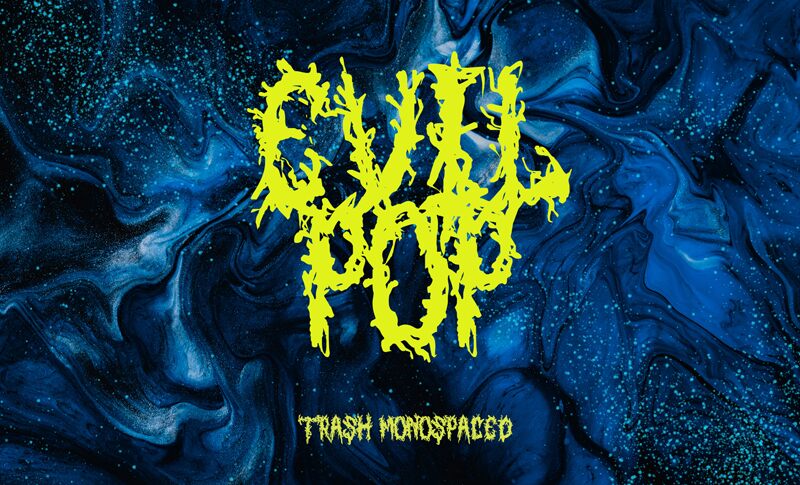
Evil Pop font is a striking display typeface designed by Mofr24, embodying a terrifyingly trashy aesthetic that resonates with the essence of dystopian metal culture. Its condensed structure enhances the sharp, jagged edges that create a menacing atmosphere, perfect for evoking feelings of darkness and despair. Each letter twists and turns, exuding an edgy persona that's ideal for drawing attention.
This font thrives in contexts such as logotypes, headlines, and album covers, serving as a potent visual statement for any metal band aiming to make an impact. Whether used alone or combined with other design elements, Evil Pop demands to be noticed and ensures your brand’s identity stands out amidst the shadows. Embrace the chaos and let this font elevate your creative projects into formidable expressions of style and attitude.